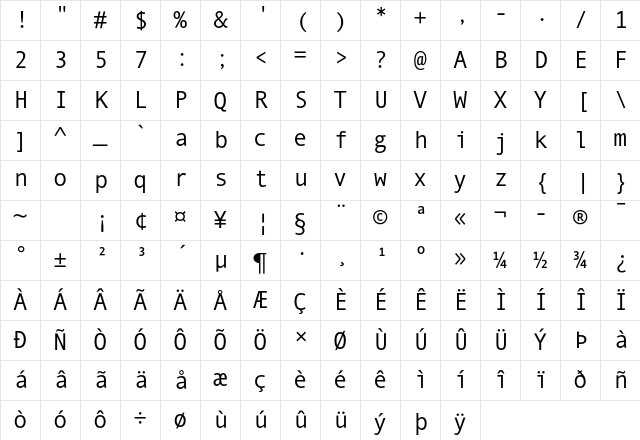
Andale Mono MT Std Regular
Foundry: Agfa Monotype Corporation
Complete Andale Mono MT Std Regular glyph index. Displaying only characters natively supported by Andale Mono MT Std Regular font.
Design Context for Andale Mono MT Std
Andale Mono MT Std uses fixed-width spacing throughout, giving it the structured, systematic character associated with coding environments and technical documentation.